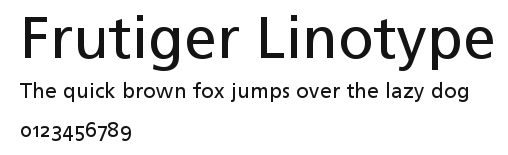
Frutiger Linotype.ttf is a modern, elegant sans-serif font designed for ultimate readability and visual harmony. Perfect for branding, headlines, web design, and print materials.